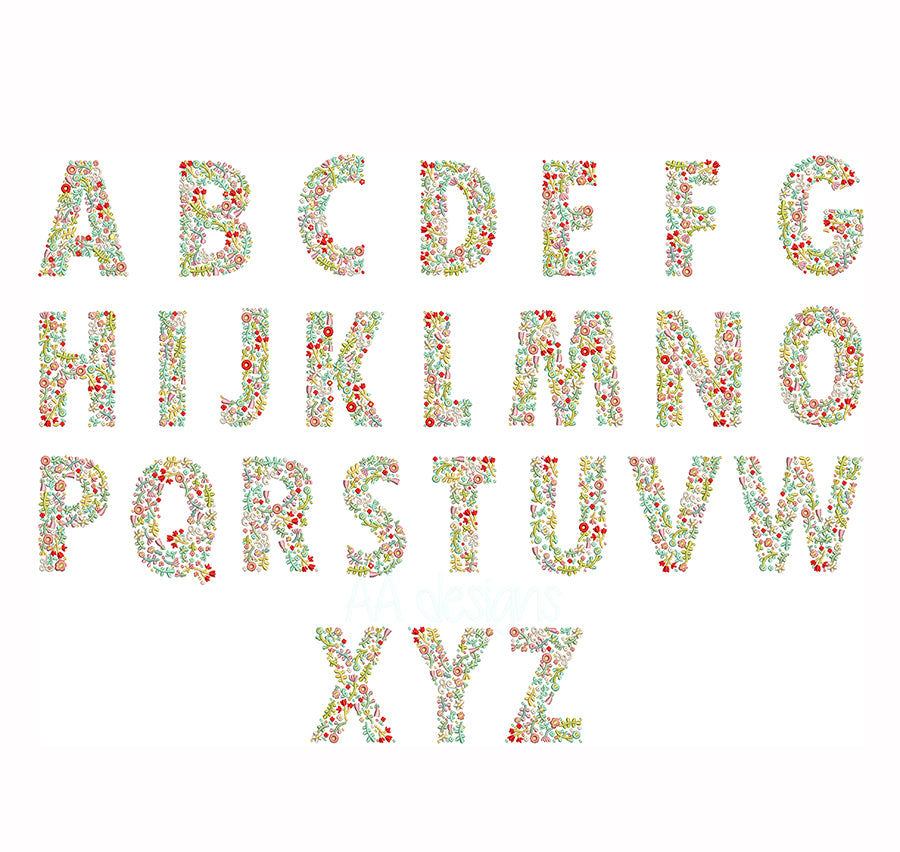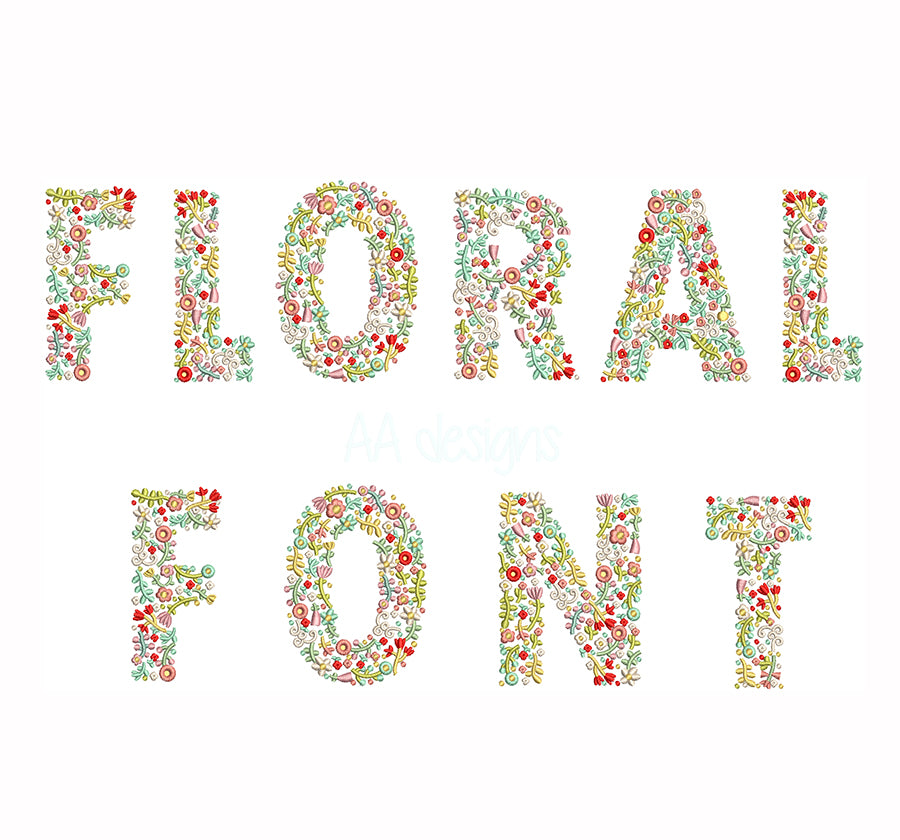
Floral Embroidery Font
Stitch nature's beauty into every project with the Floral Embroidery Font — a stunning machine embroidery font where every letter is beautifully intertwined with intricate floral and botanical details. 🌸🌿✨
Elegant yet versatile, this font is a perfect fit for wedding and bridal accessories, spring and summer apparel, home decor, personalized gifts, tote bags, and any project where you want to make a naturally beautiful impression.
- Includes full alphabet (A–Z, a–z) and numbers
- Intricate floral details — best stitched at medium to large sizes for full effect
- Clean, detailed stitching that showcases every petal and leaf beautifully